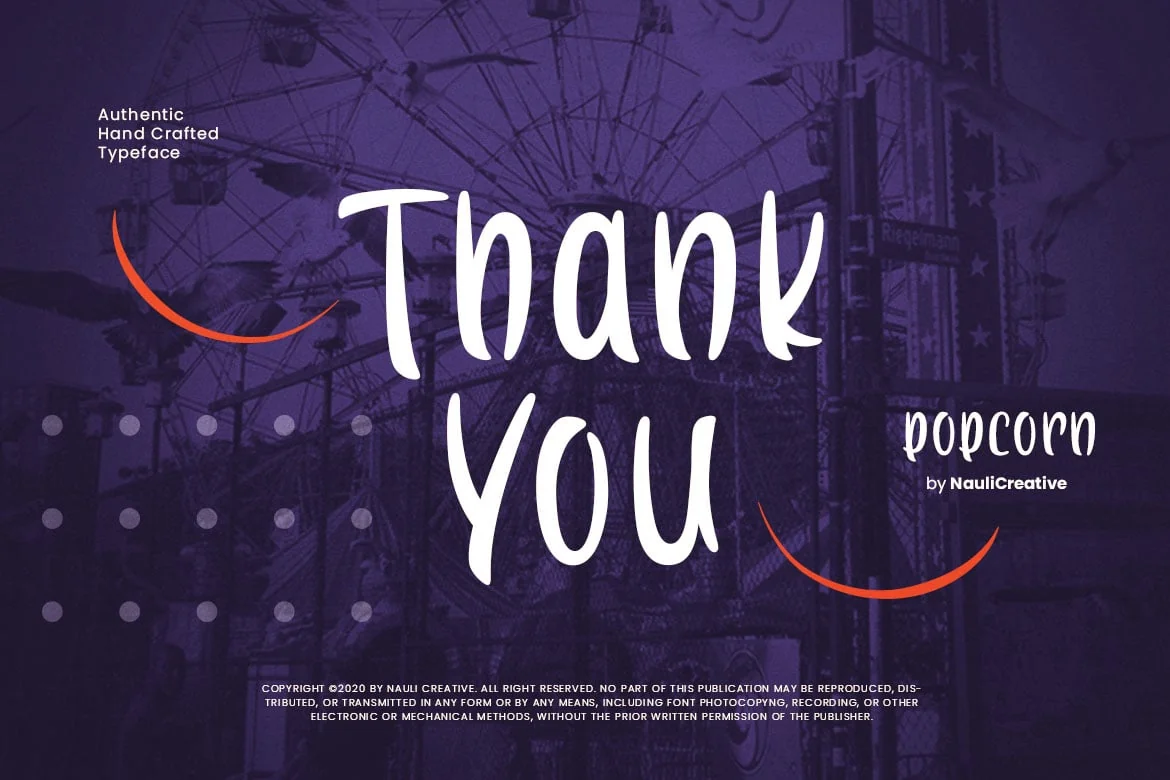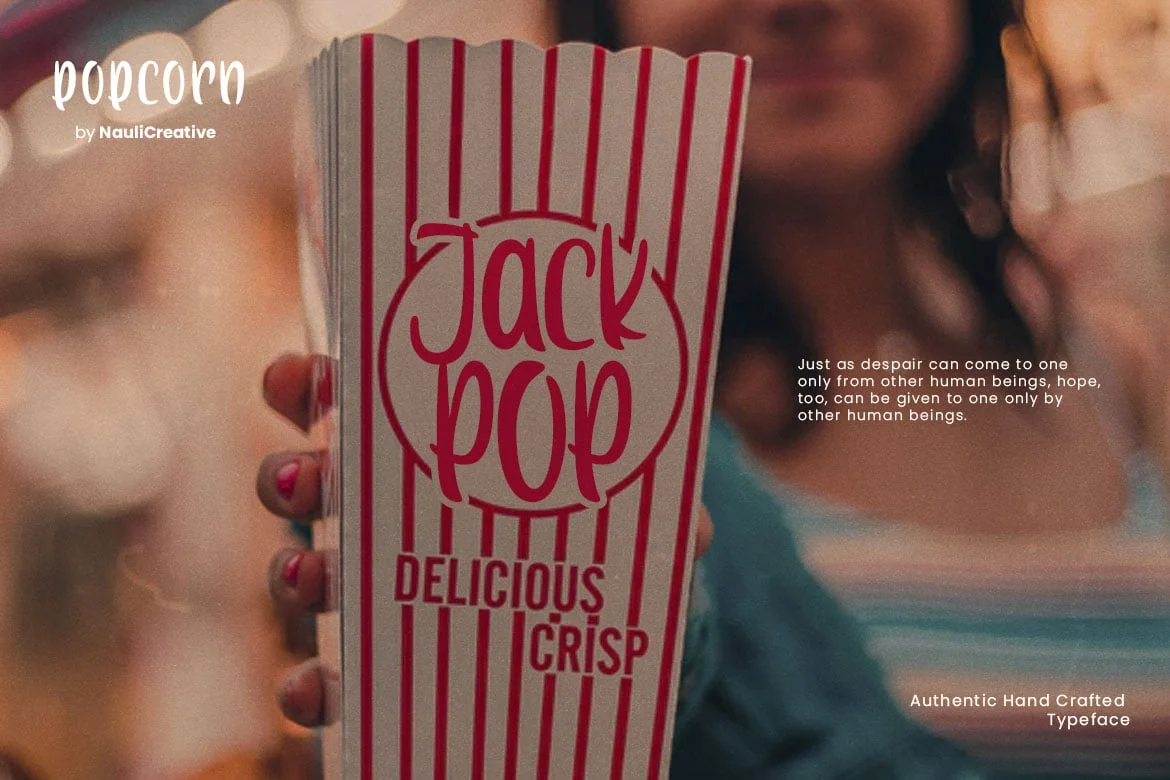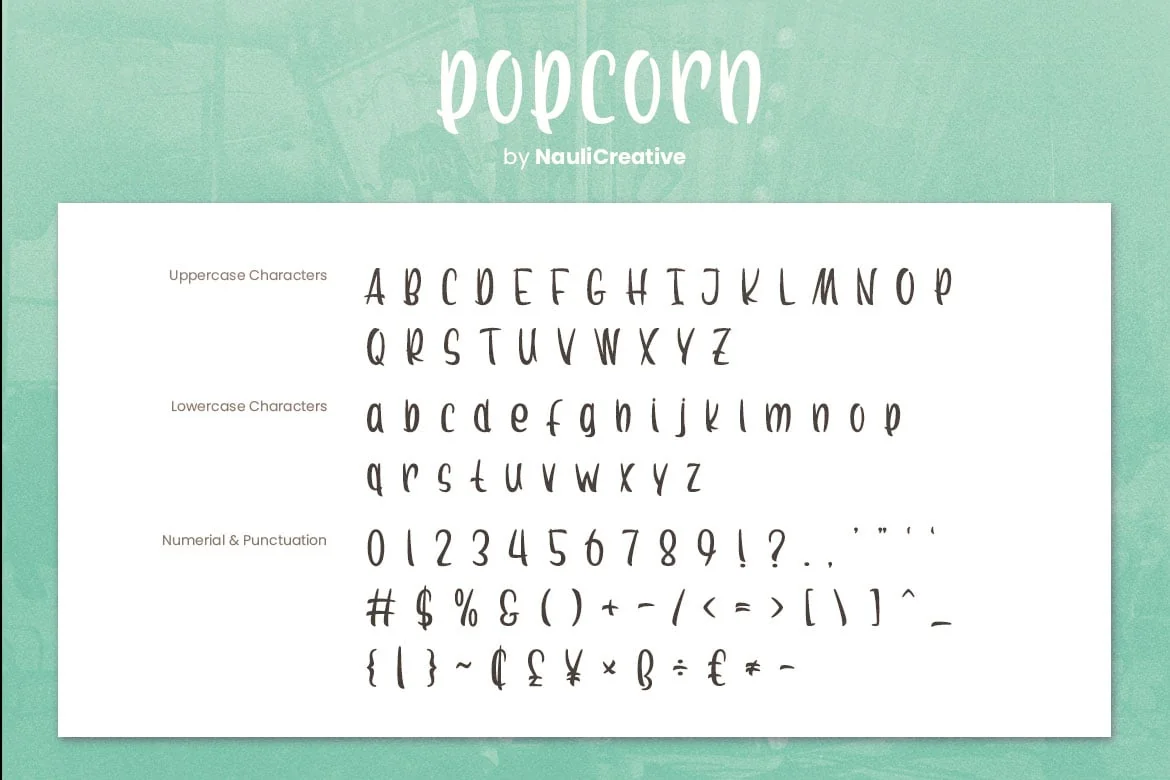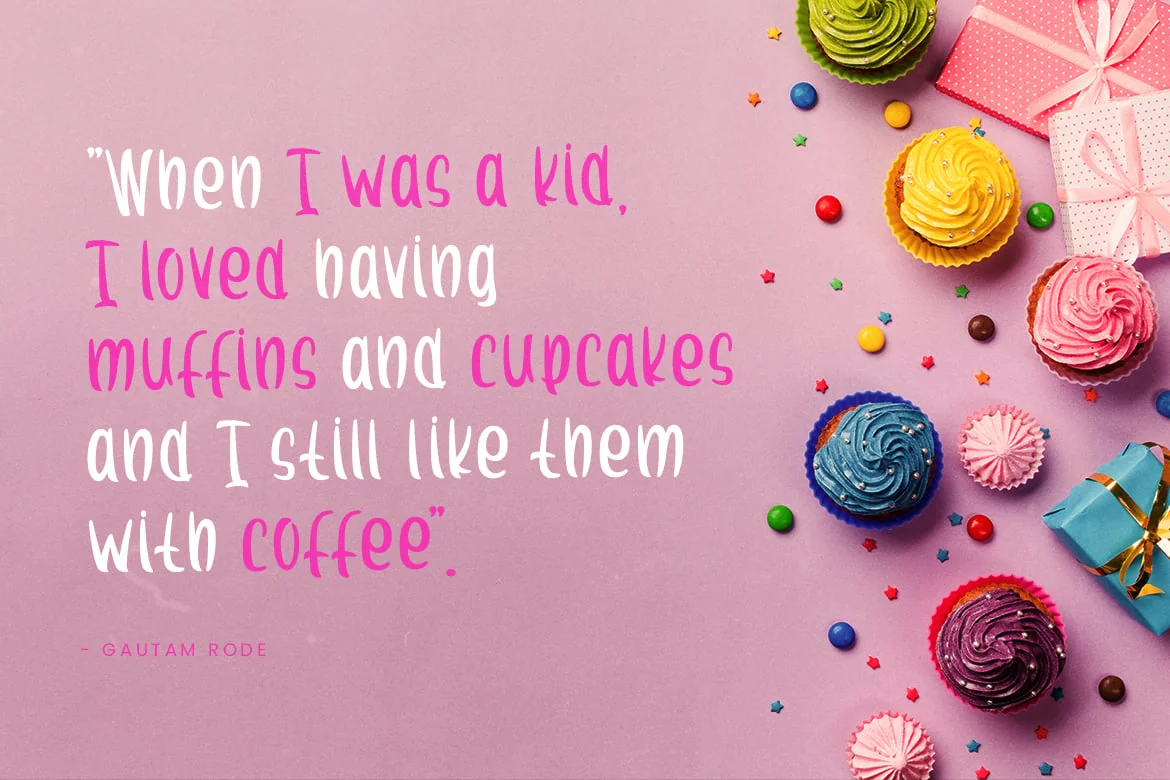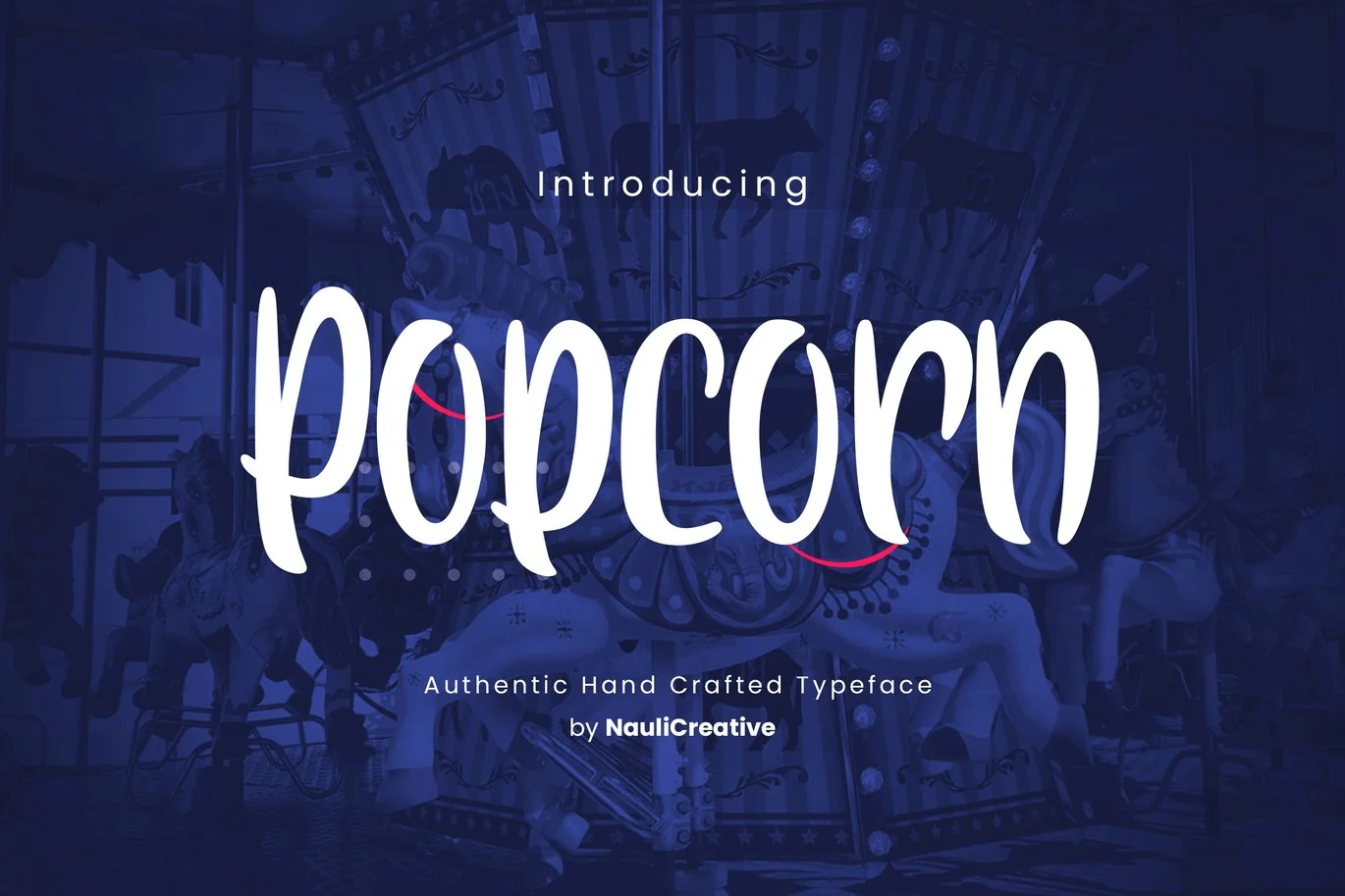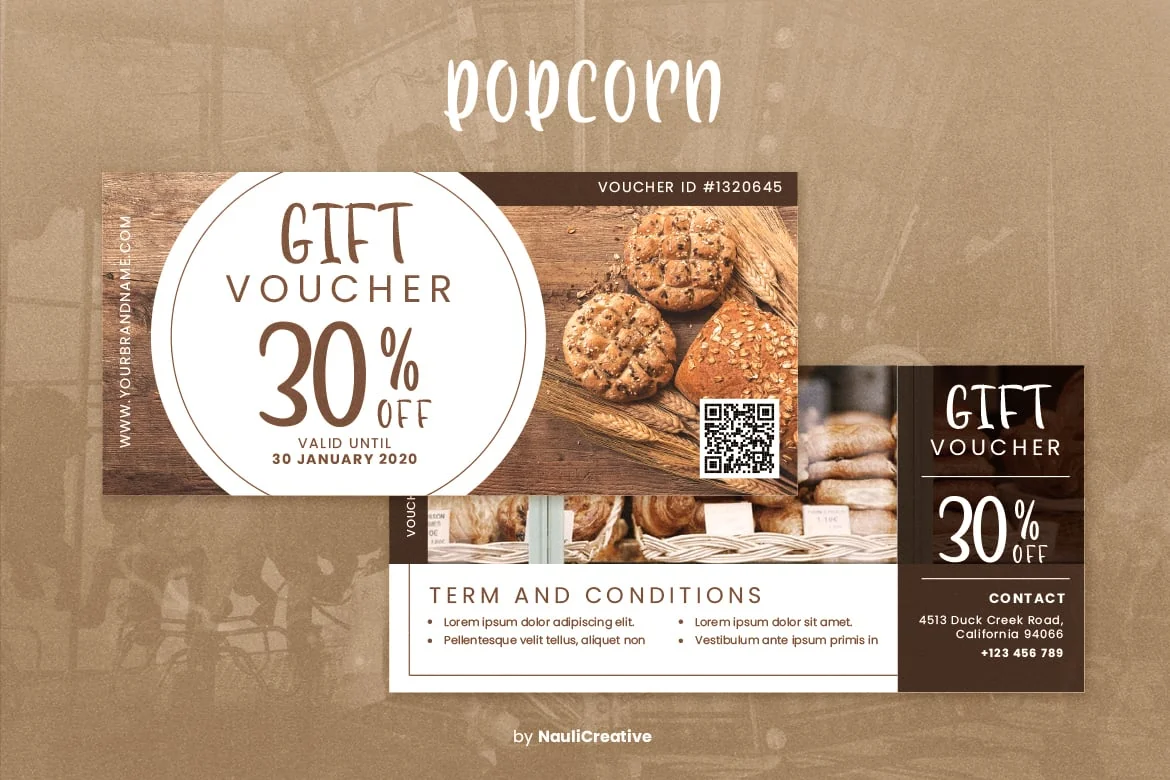
Popcorn – Fun Decorative Font
Are you looking for a fun authentic hand crafted decorative font that suite for casual purpose? We can help! Try to download our popcorn font. The font is suitable to use for all purpose. Try to use it on banner ads, event, greeting card, poster, postcard, photography, branding, editorial, quote, music, carnival, cafe, food, travelling, and many more to see the best of it 🙂